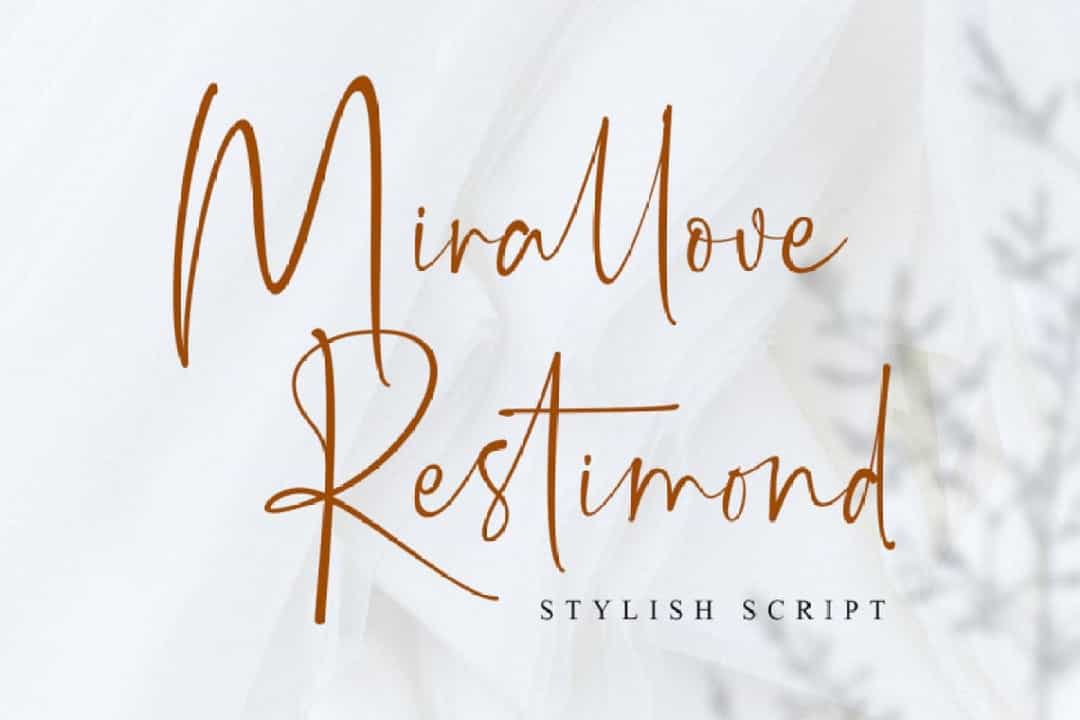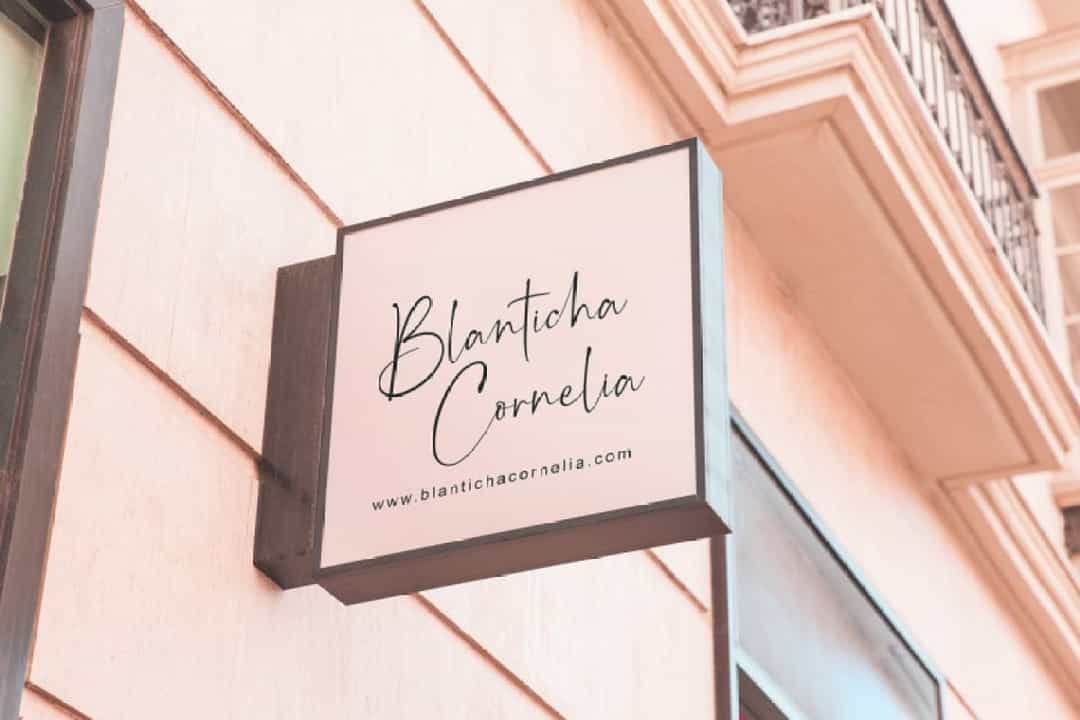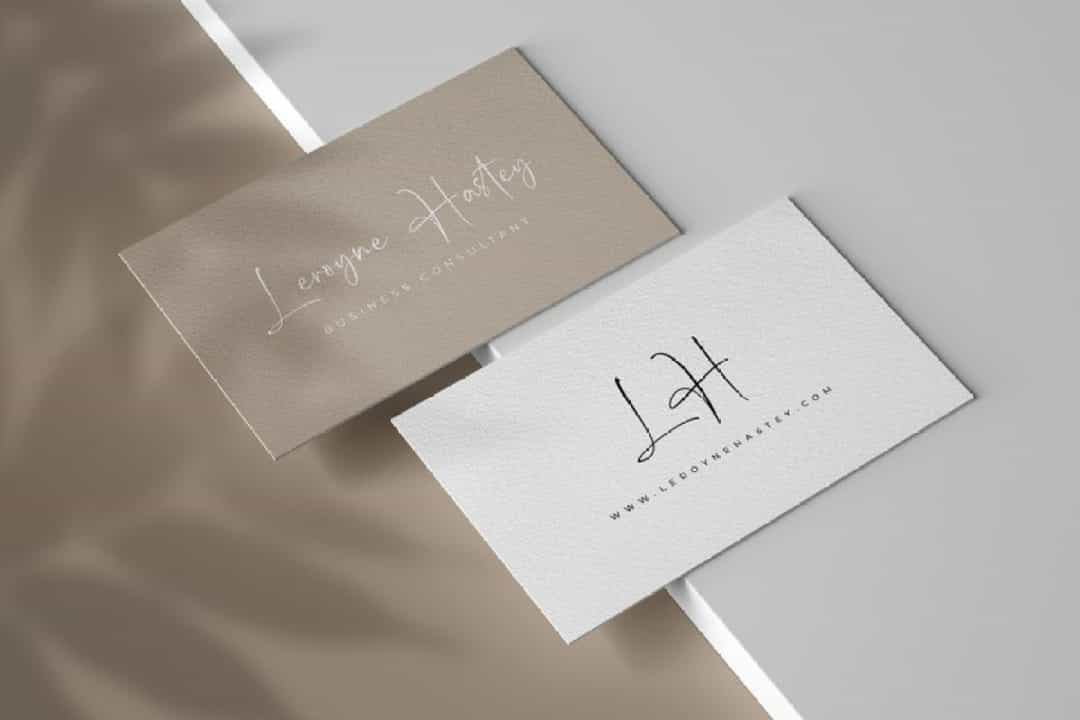
Mirallove restimond is a clean modern and casual handwritten display font that is suitable for a wedding invitation, poster, quote, business card, logos and so on.